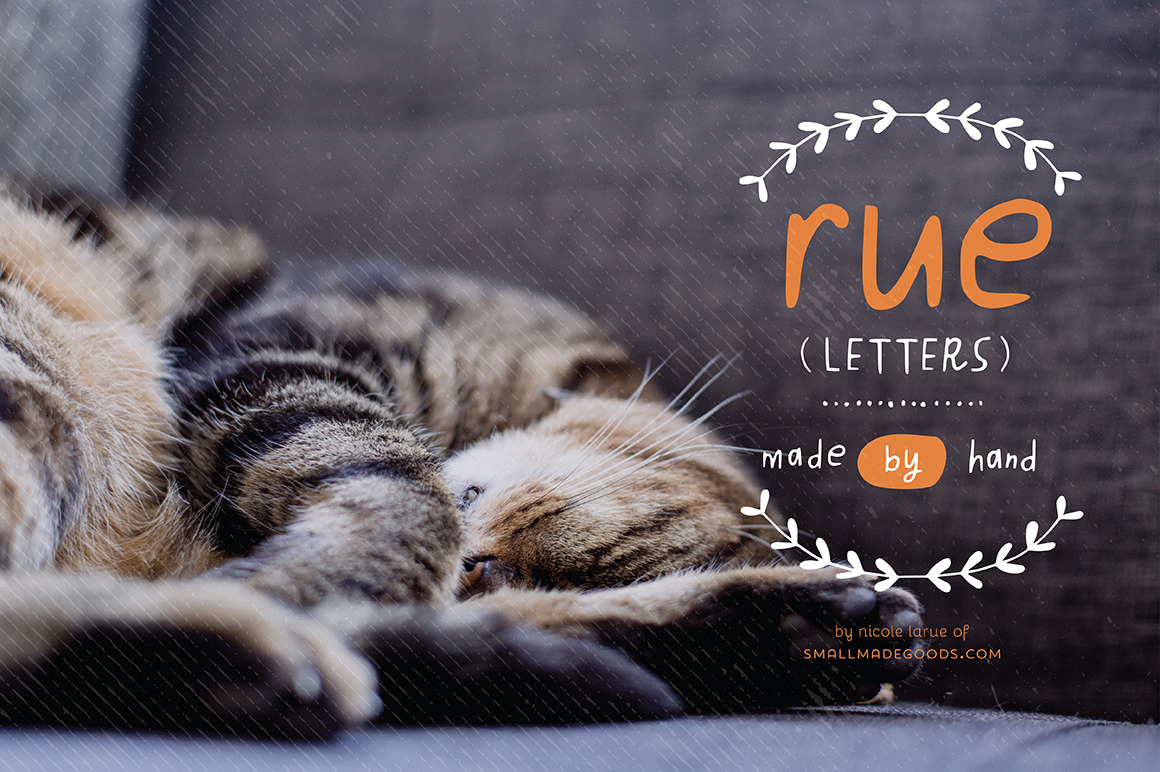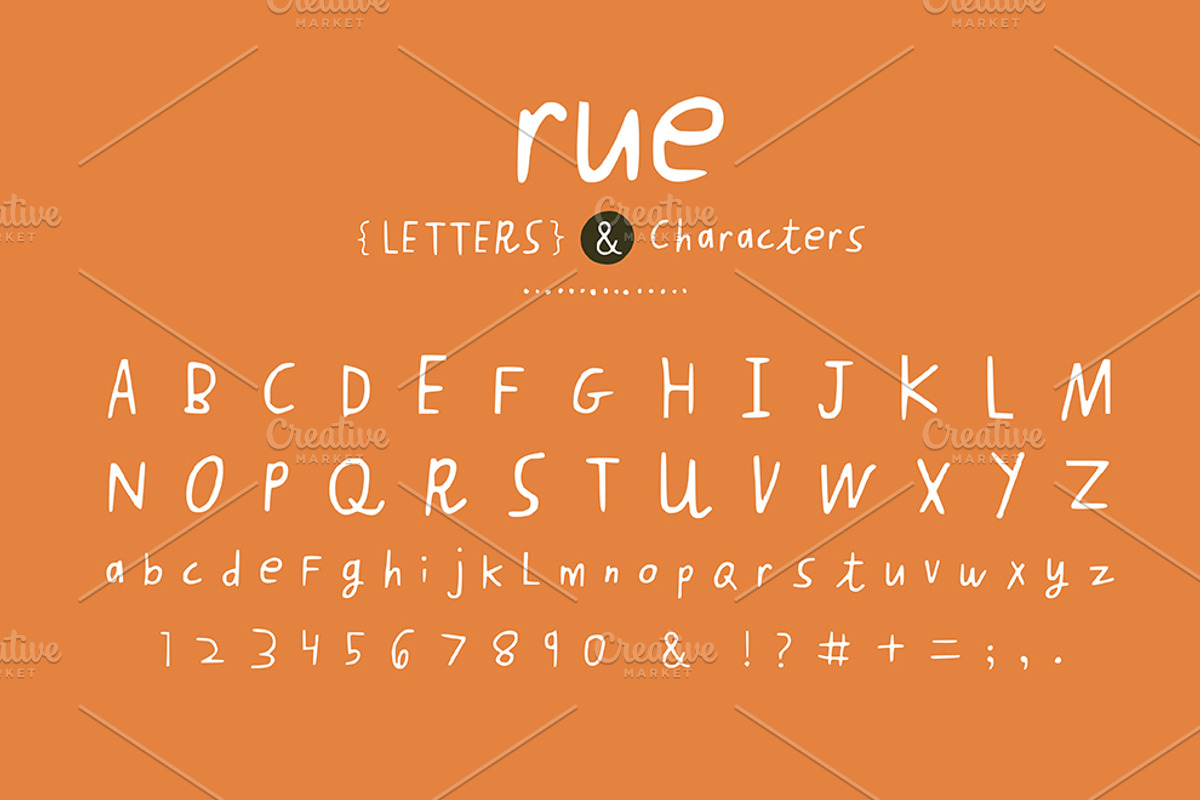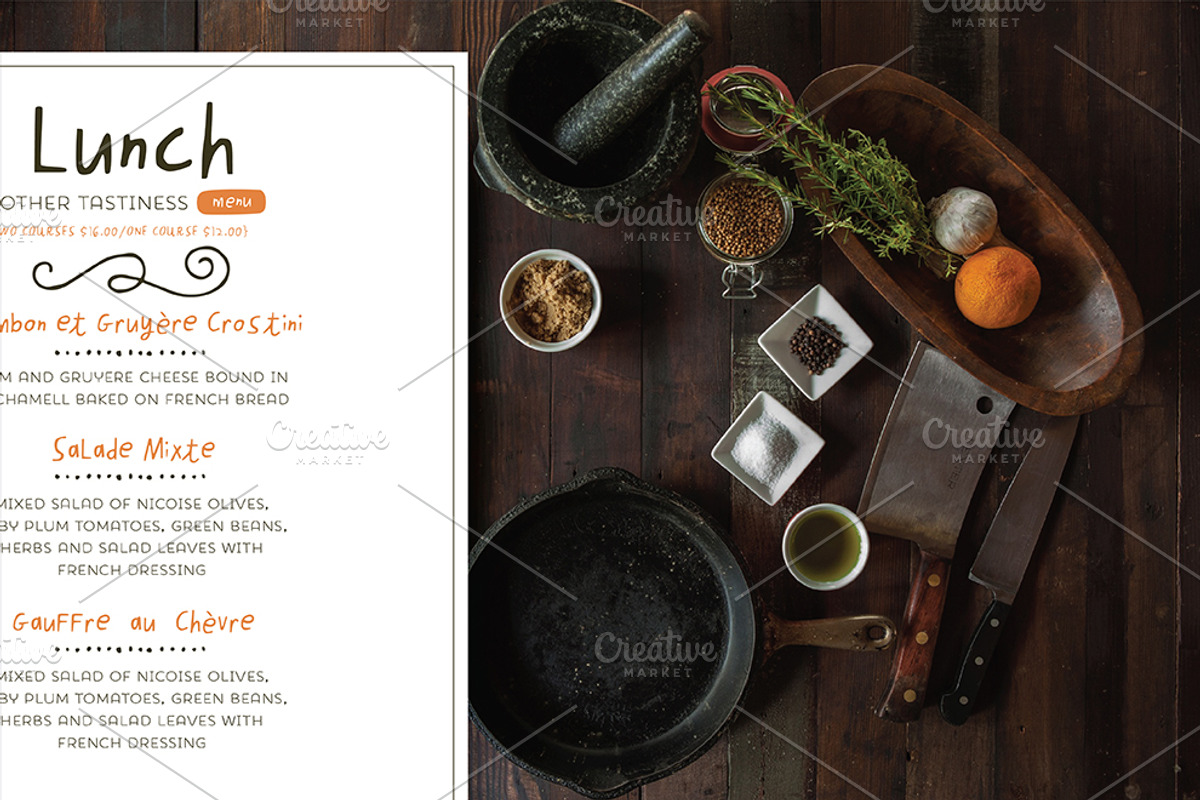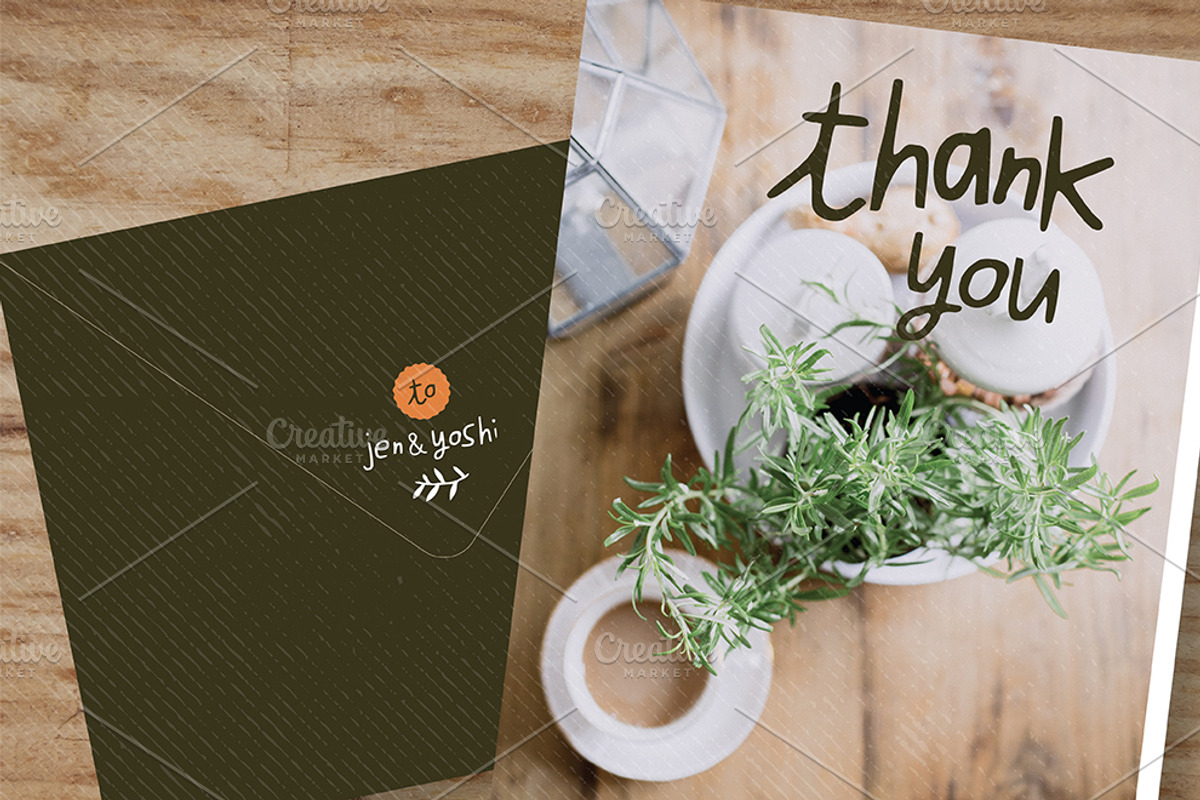
Rue Letters (Font)
Rue Letters is a hand drawn, display font for just about everything! Menus, greeting cards, captions, headlines, whatever you might absolutely love! Delivered as otf.